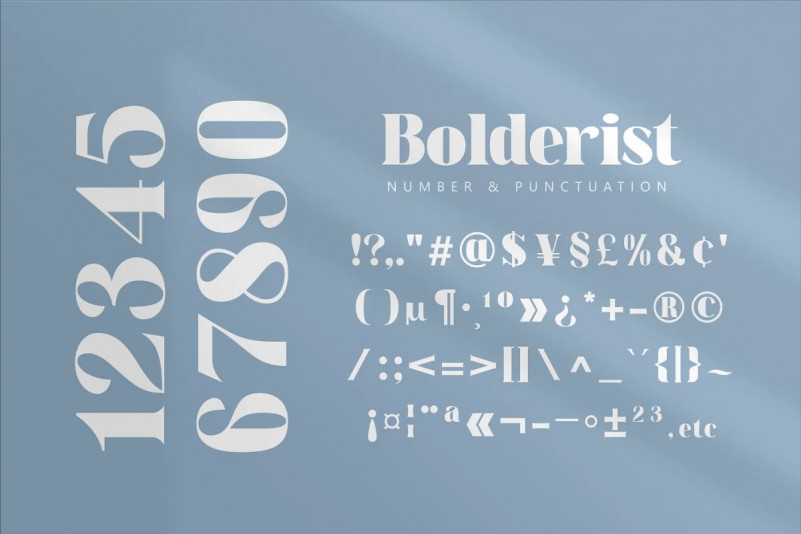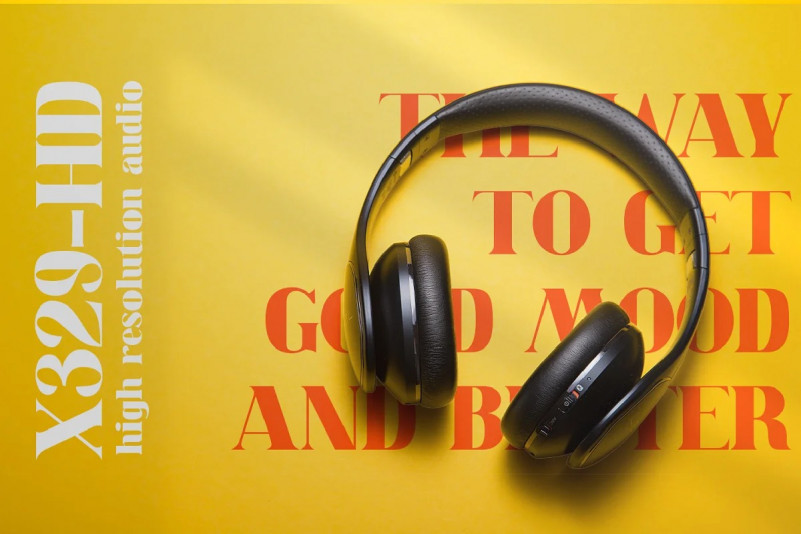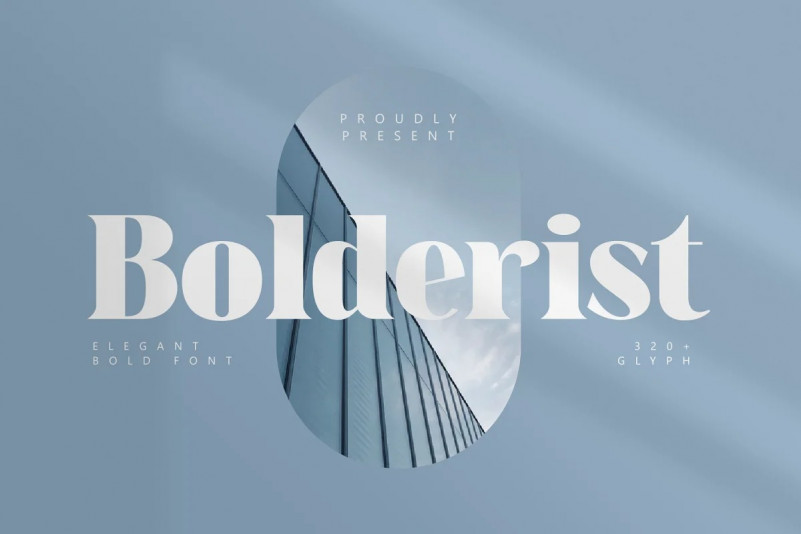
Bolderist Serif Font
Bolderist is a bold serif font designed for writing that needs to be read easily and clearly. However, the Bolderist still has an artistic and elegant form. Each curve is integral and has a point at extrema. You will get a smooth shape on each side.